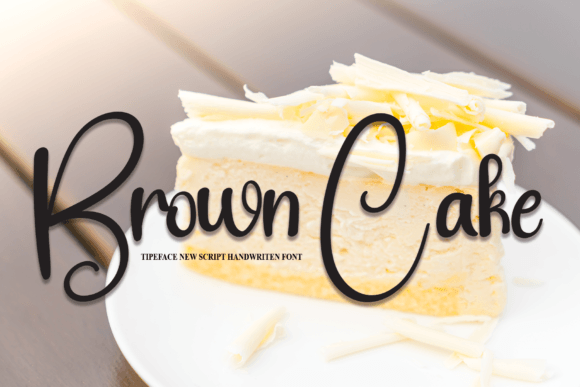
In a world saturated with digital information, capturing attention and making a lasting impression is crucial. Enter the Brown Cake Font, an exquisite creation by the talented William Jhordy, a masterpiece that will elevate your designs and leave an indelible mark.
Crafted with meticulous care, Brown Cake is not just a font; it's an experience. Its fluid lines and gentle curves exude a sense of warmth and playfulness, making it the perfect choice for adding a touch of whimsy and charm to your projects. Whether you're a seasoned designer or just starting out, Brown Cake has the power to transform your vision into a reality.
Imagine creating a logo that stands out from the crowd, a logo that embodies your brand's personality and resonates with your target audience. With Brown Cake, you can effortlessly convey a sense of authenticity and approachability, leaving a lasting impression that will keep customers coming back for more.
But Brown Cake's versatility extends far beyond logo design. Its charming personality makes it an ideal choice for invitations, greeting cards, posters, and social media graphics. Let your creativity soar as you explore the endless possibilities that await you with this extraordinary font.